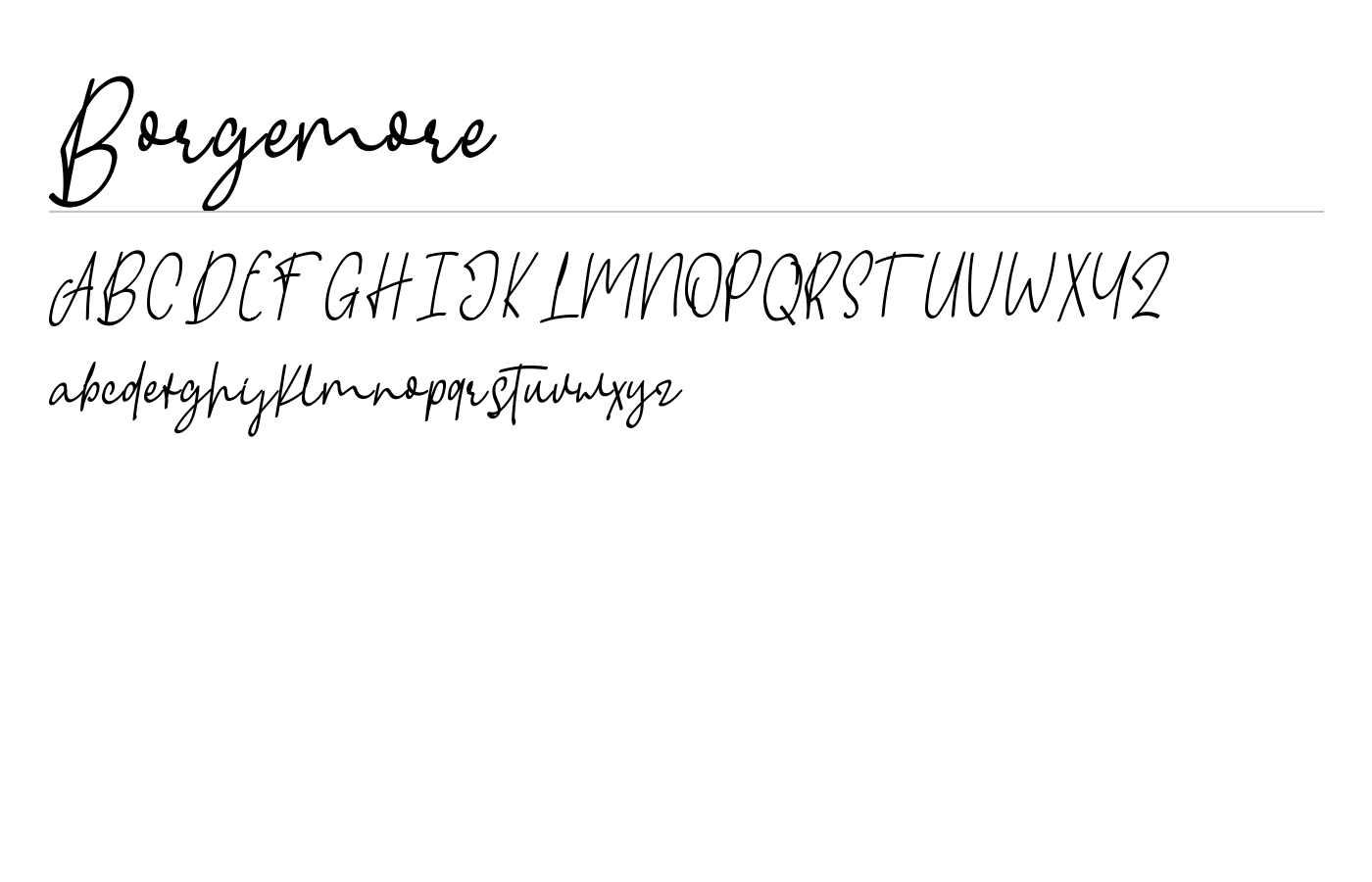
Borgemore is a delicate, handwritten script font characterized by its tall, slender letters and smooth, flowing strokes, giving it an intimate, personal feel. Its light weight and elegant irregularity make it perfect for creative branding, invitations, and stylish editorial work where a natural, artistic touch is desired. This font works best in designs that aim to convey warmth, authenticity, and a modern, handcrafted vibe.
Borgemore Font
About Borgemore Font
| Font family | Borgemore Font |
| Designer | Stefie Justprince |